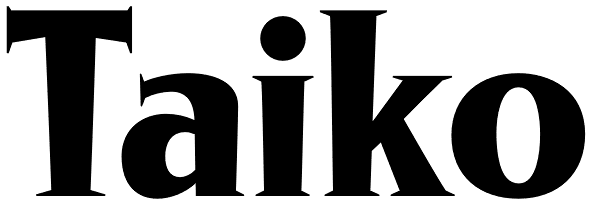
Taiko
Taiko is a strong headline typeface based on a design by Otto Arpke from 1928. Taiko Std is the basic version with 235 glyphs. The full version with over 650 glyphs includes the following OpenType features: - central European glyphs - small caps...